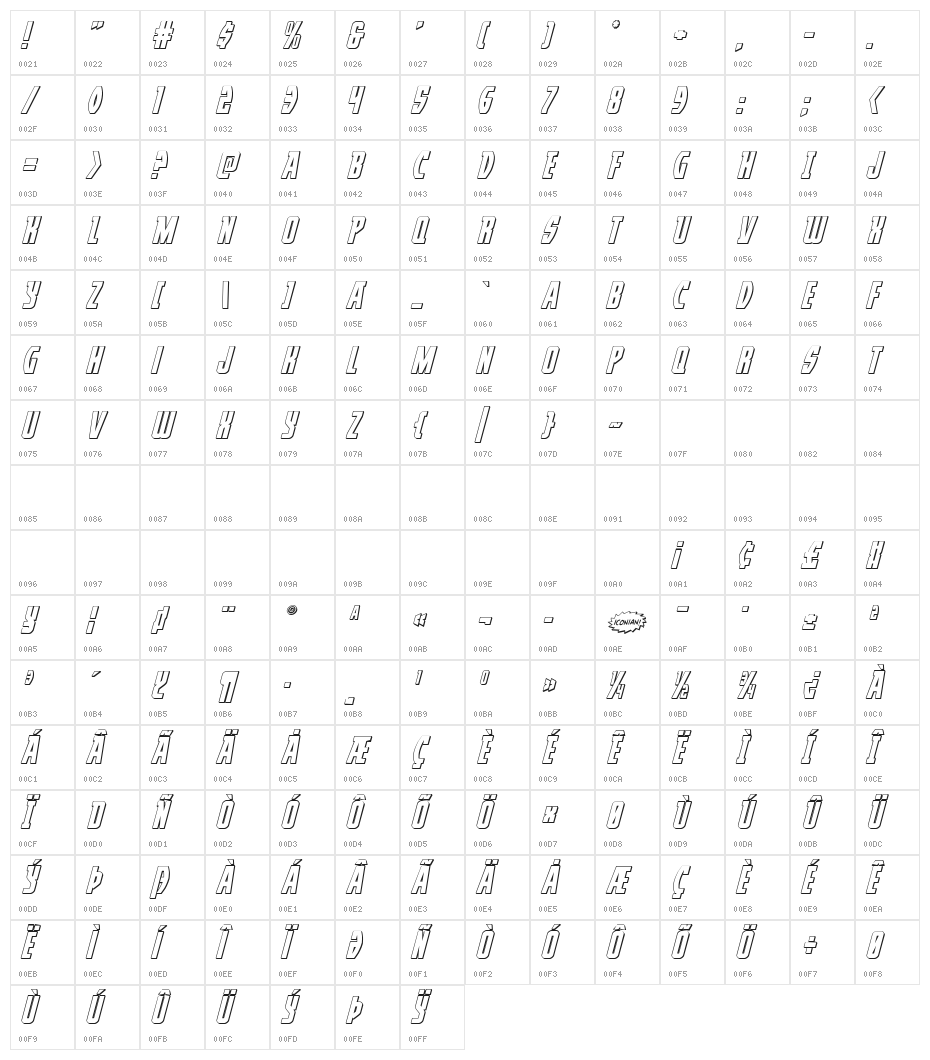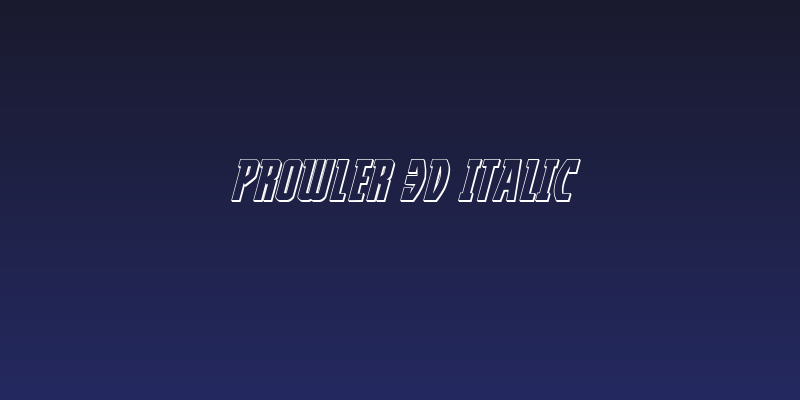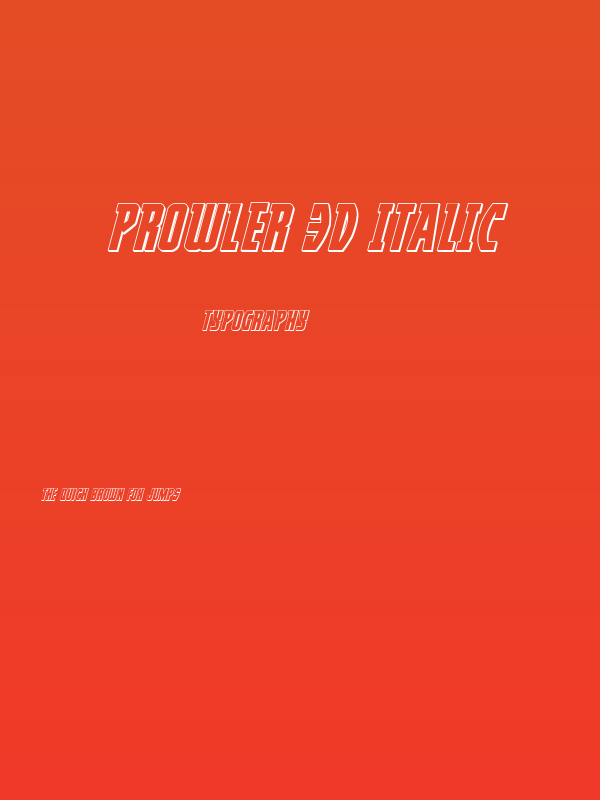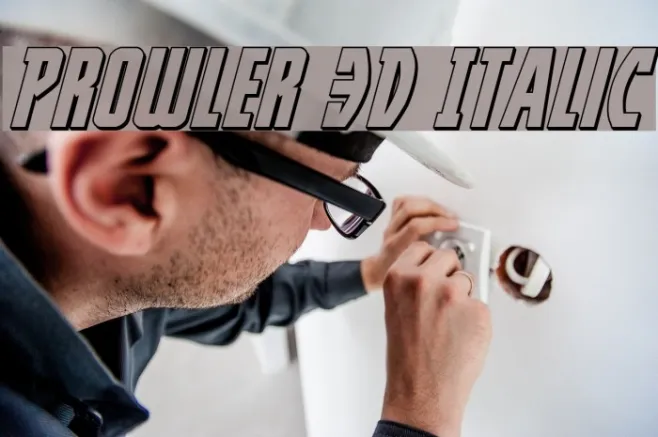
Prowler 3D Italic Font
Prowler 3D Italic Description
This font features a bold, three-dimensional design with a strong italic slant, giving it a dynamic and energetic appearance. The characters are outlined, adding depth and a sense of movement. The uppercase letters are prominent and angular, while the lowercase letters maintain the same bold style, ensuring consistency across text. The numerals are equally bold and follow the same 3D effect, making them stand out. Special characters are included, maintaining the overall aesthetic. This font is ideal for projects that require a striking, attention-grabbing typeface.
| Proposed Projects | Ideal for posters, video game titles, sports branding, and any project needing a bold, impactful typeface. |